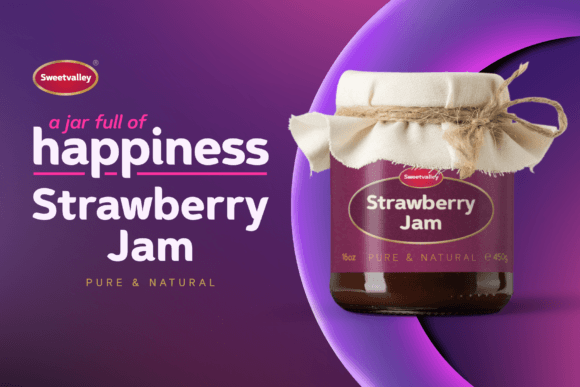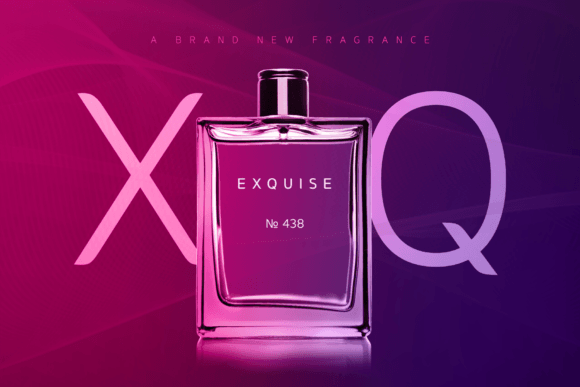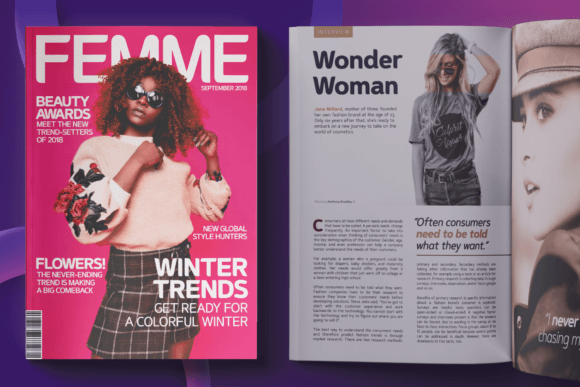
Caldina Font
Caldina is a delicious font family that adds a great taste to any given project. From light to bold, it comes with 10 fonts with matching true italics. Each font contains 659 glyphs which offers a great amount of language support including the Greek, Russian and other languages using the Cyrillic alphabet. Each glyph has been designed to perfection and kerned with countless amount of kerning pairs.When it comes to Opentype features it has oldstyle figures, tabular lining, tabular oldstyle, ligatures, subscript and superscript, fractions and language localizations (such as the Polish kreska).